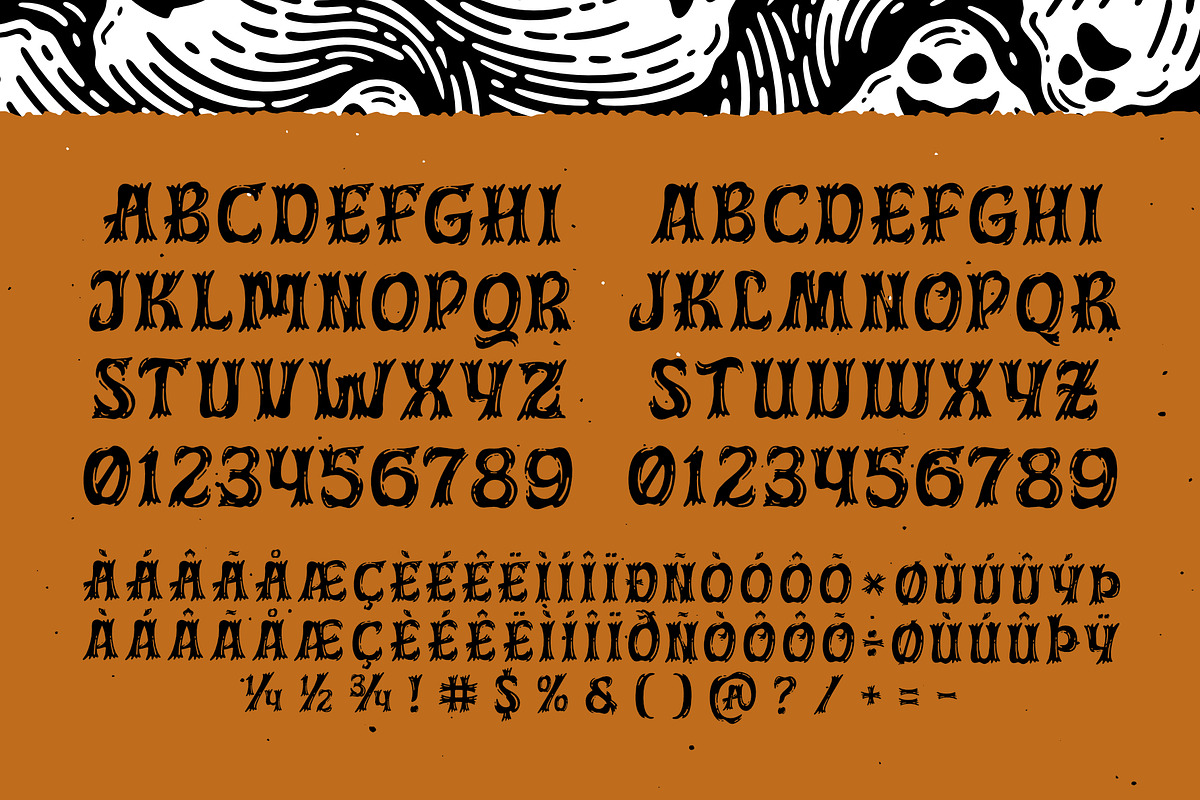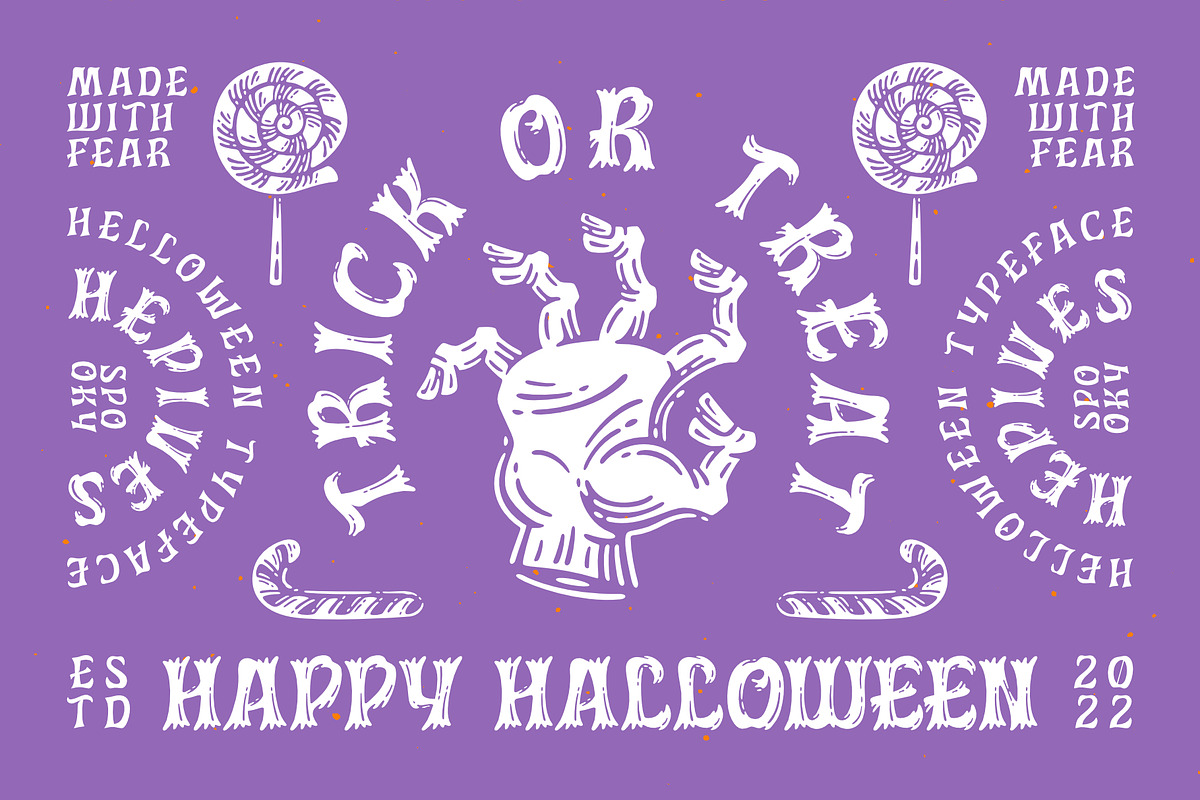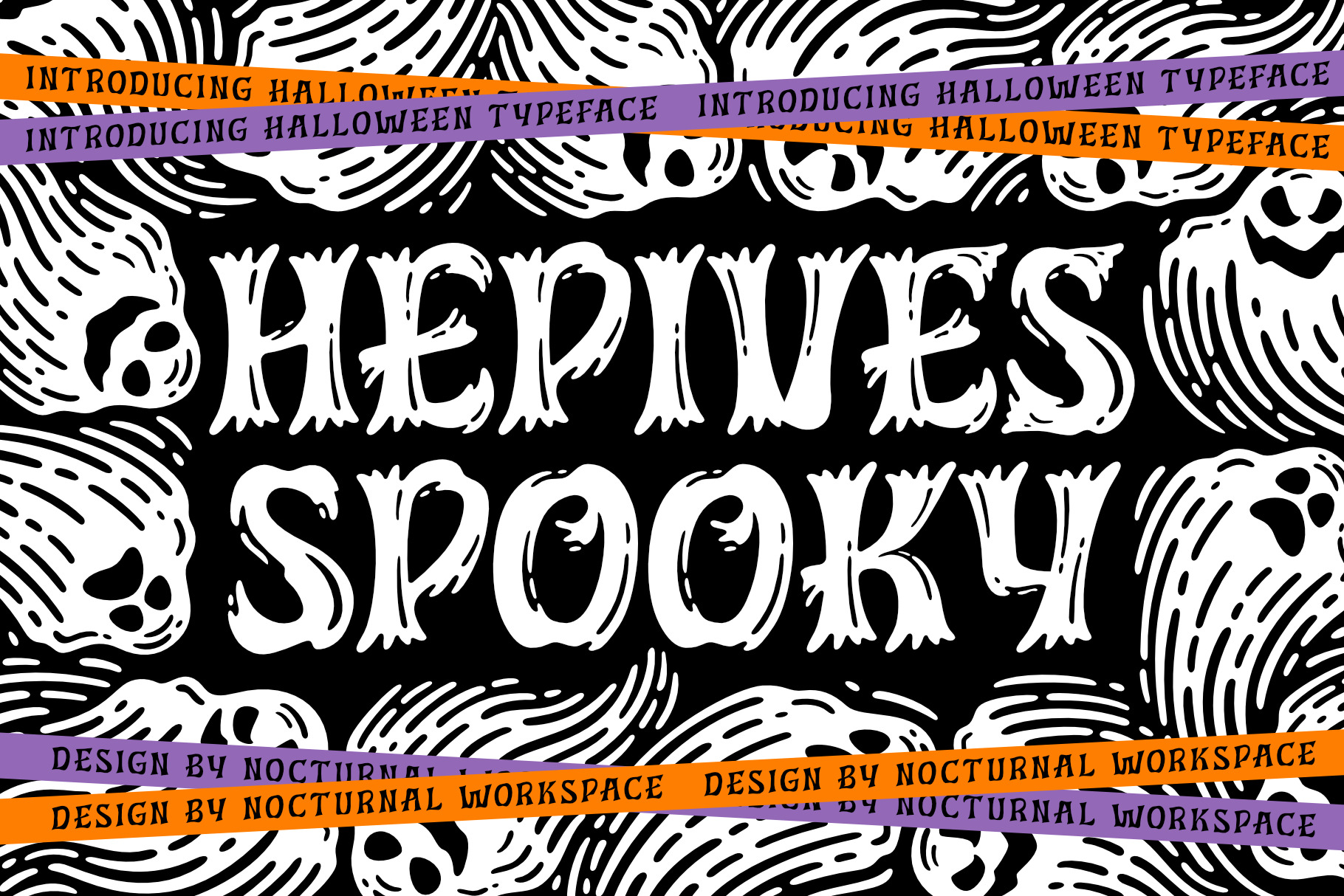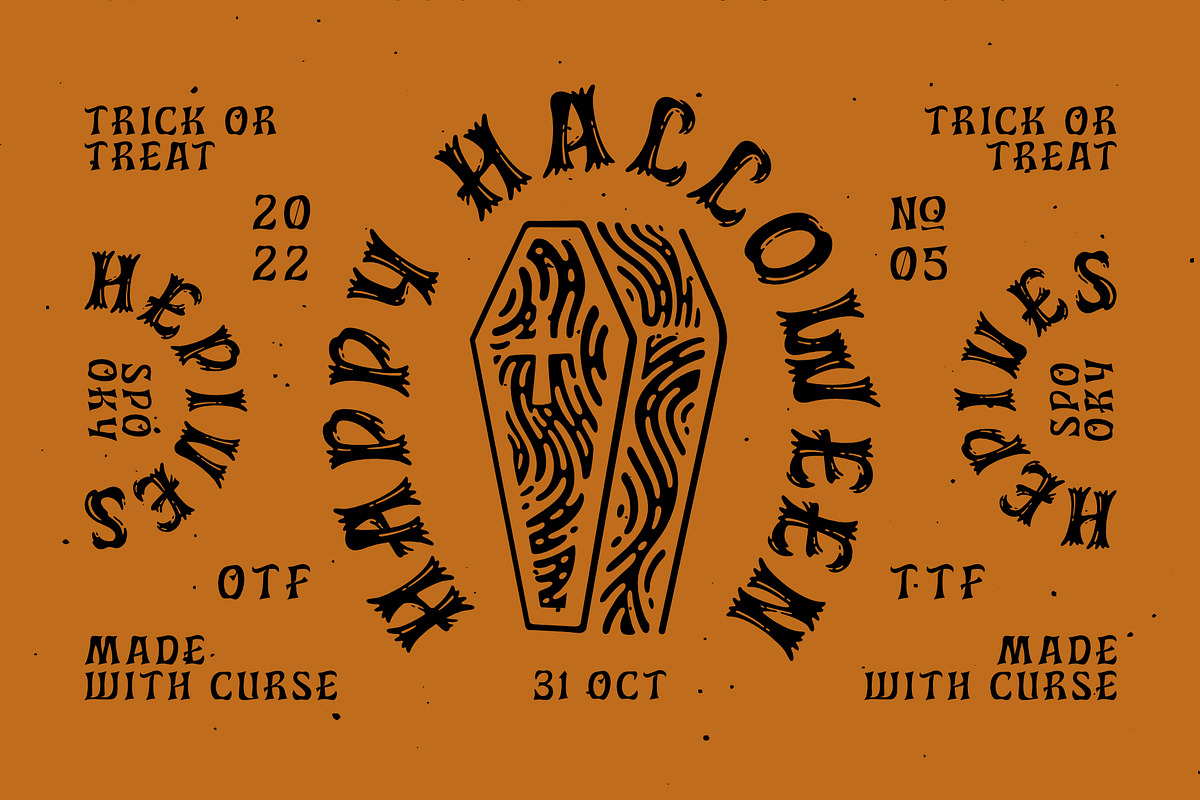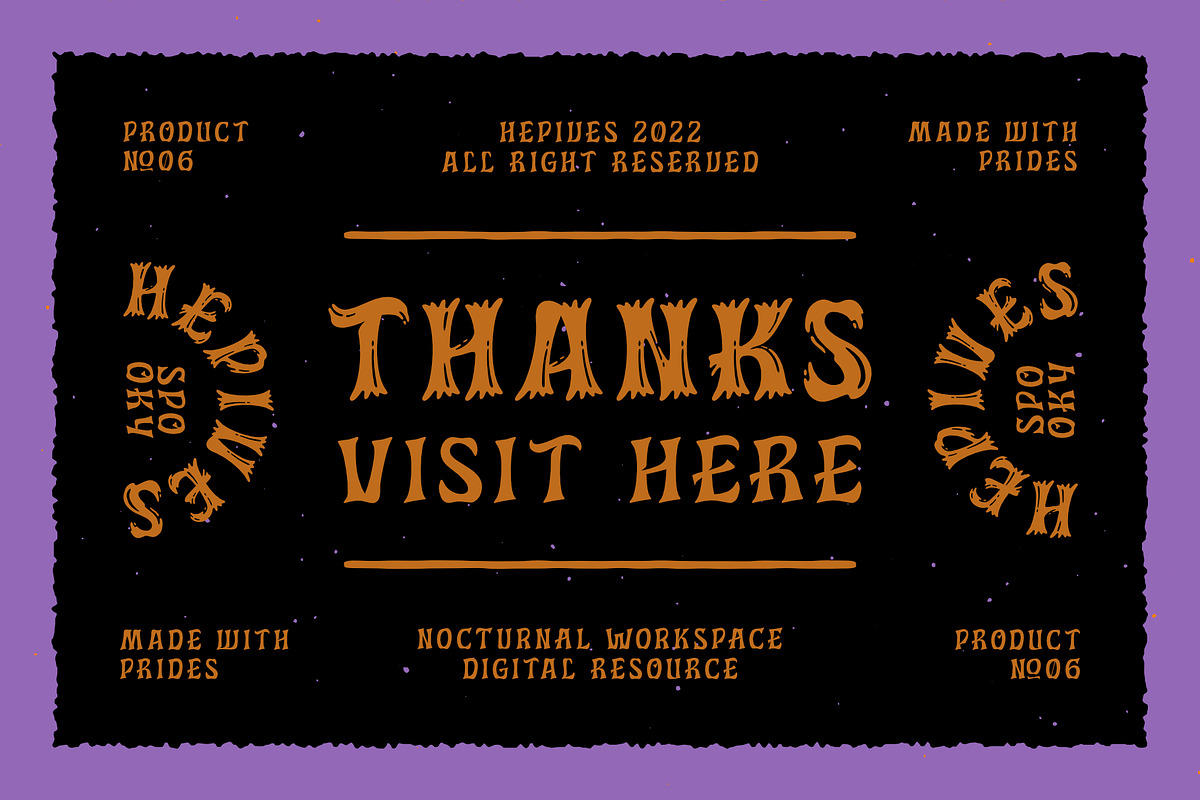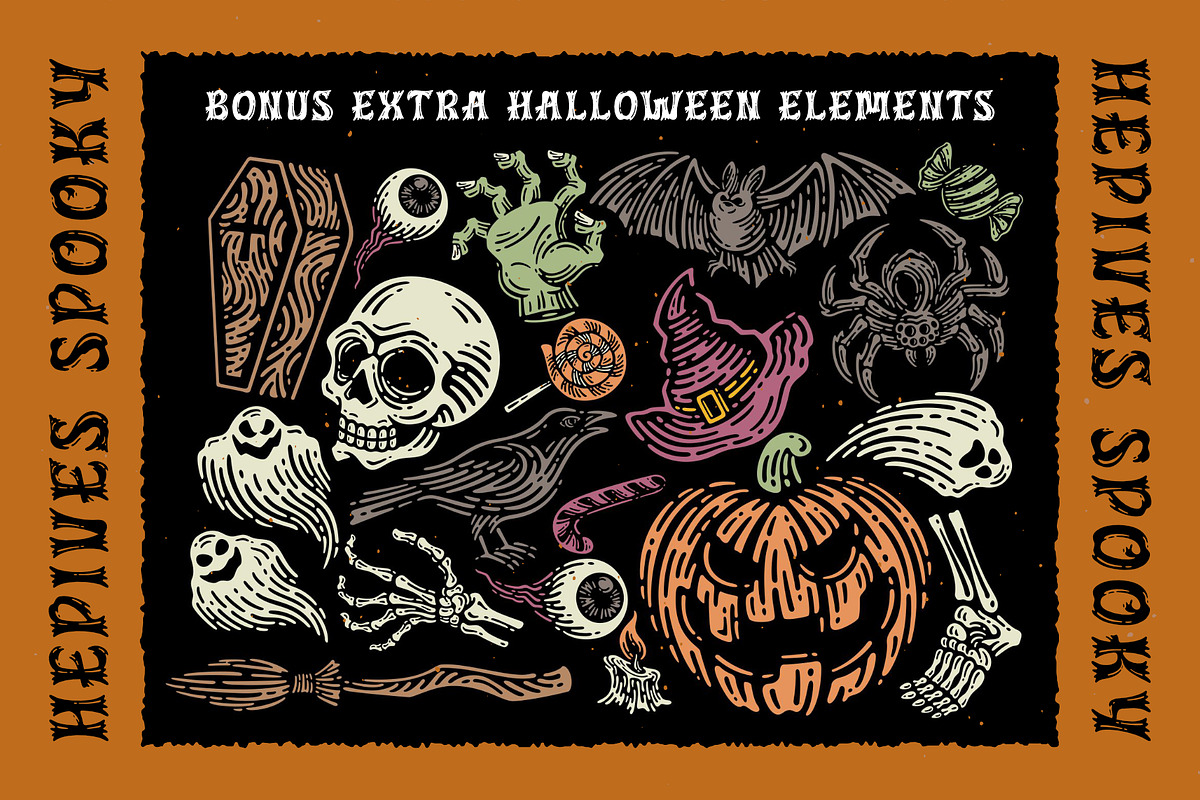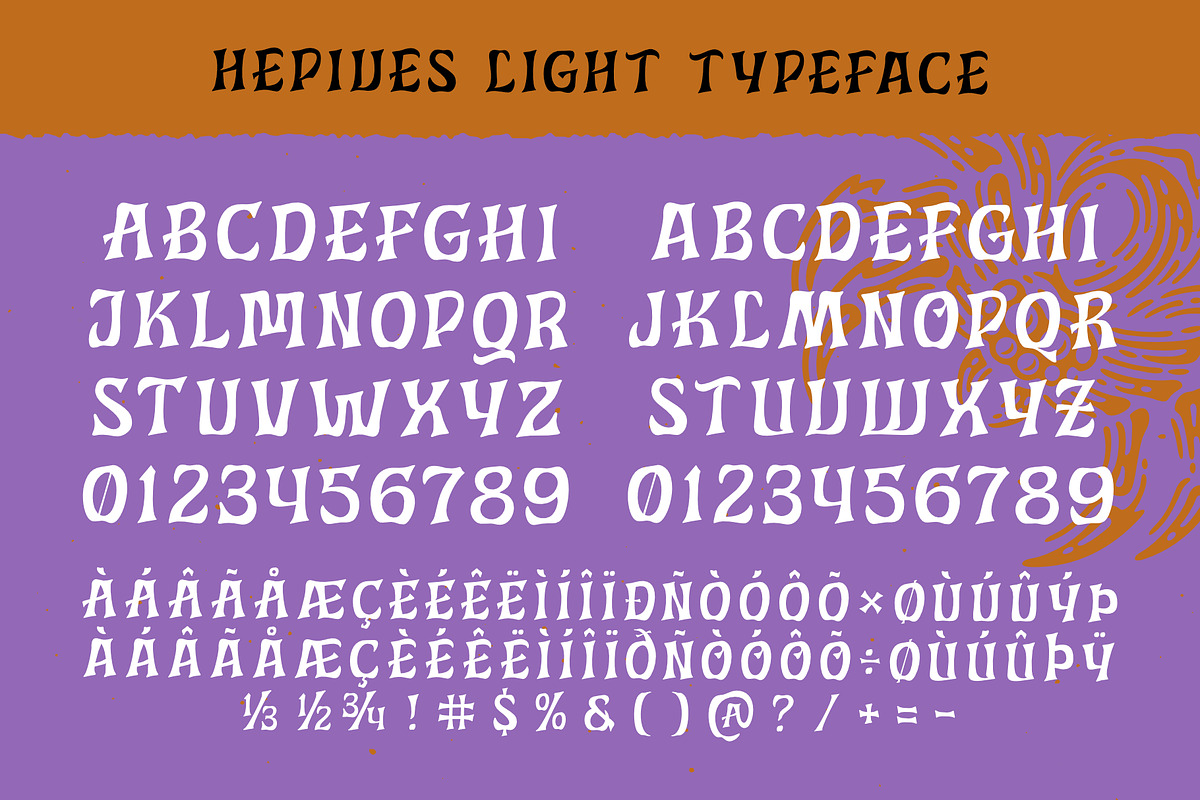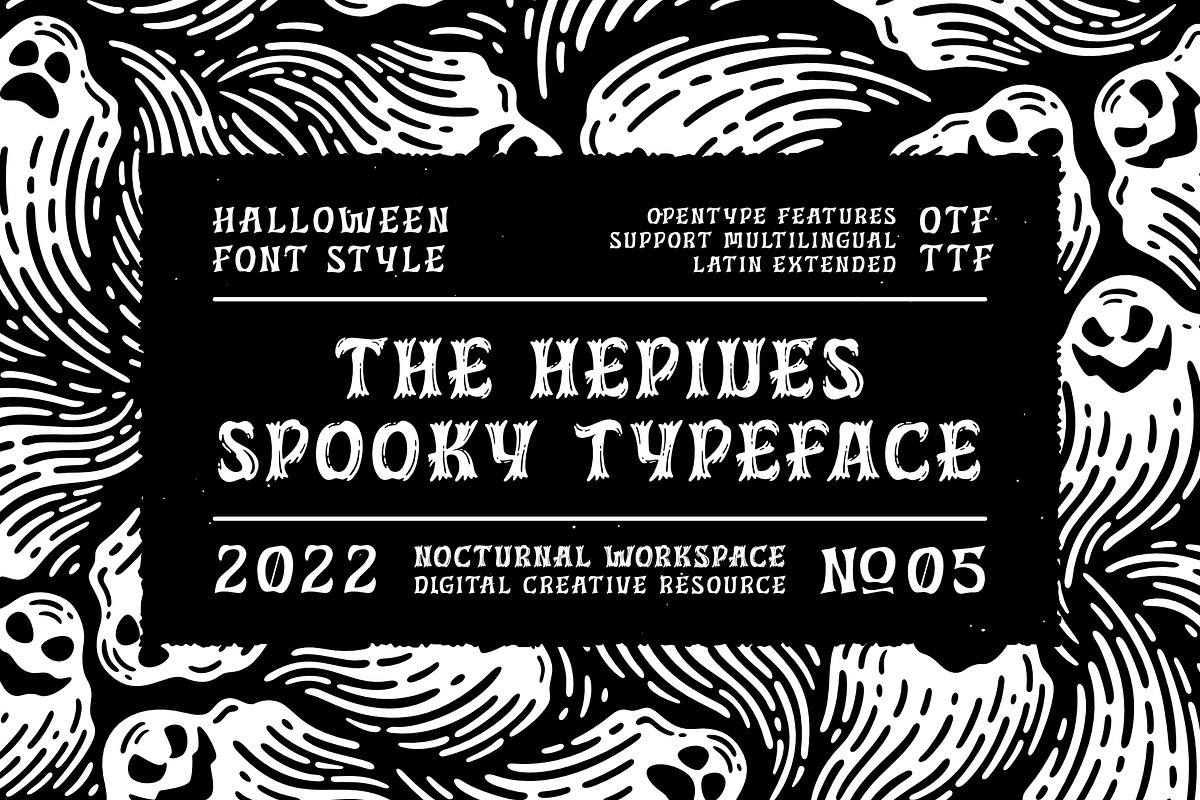
Hepives Spooky Fonts
Hepives Spooky is a typeface display version for the halloween theme. These fonts are basically alternative versions of the predecessor fonts with the same name "Hepives Fonts" you can see here https://creativemarket.com/nocturnal_workspace/7255846-Hepives-Fonts.